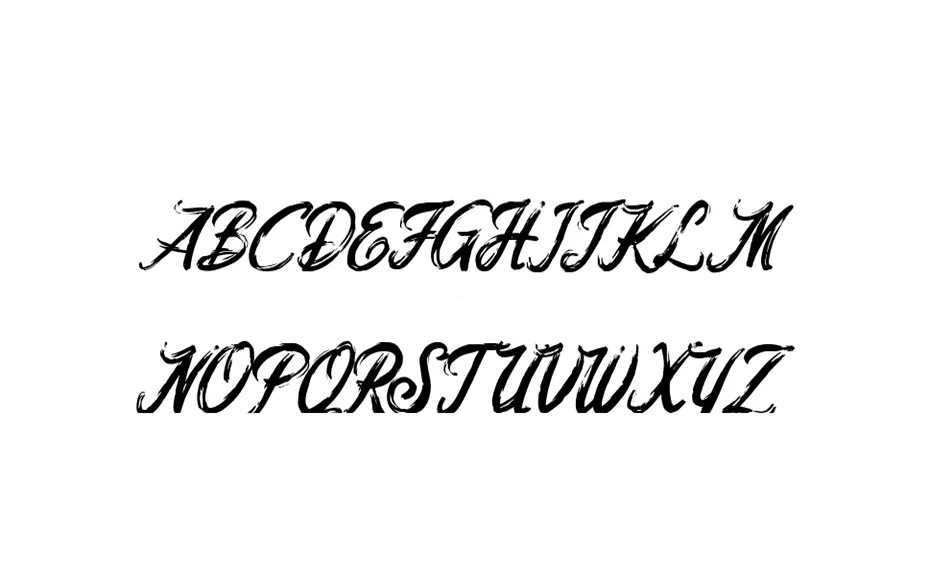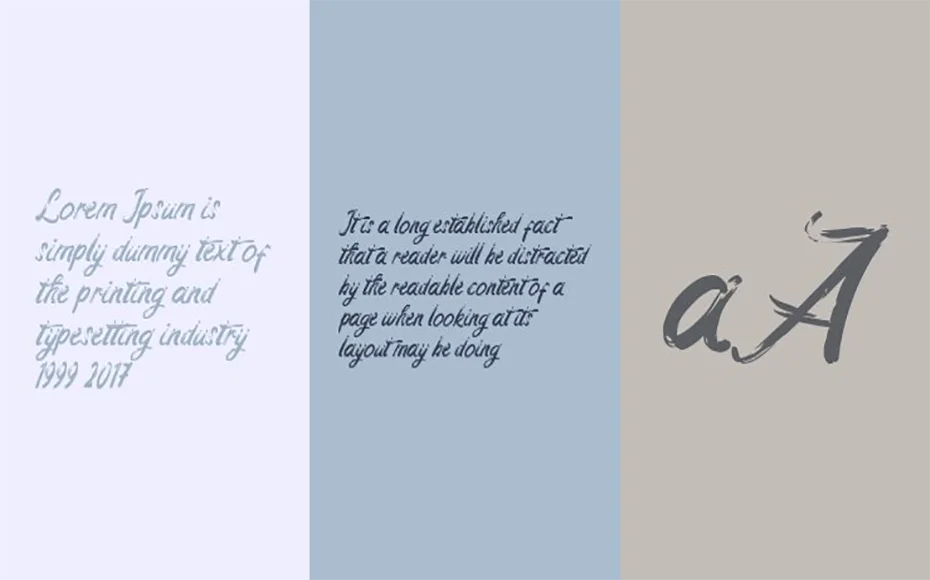
Are you looking for an elegant and vintage feel handwritten brush font? Then, you should check out the Hello Vintage Font. It is ideal for posters, flyers, banners, headers, and more.
This typeface was made by the super-talented lady Fenny Wiryani for her type of foundry Starinkbrush. Fenny Wiryani belongs to Indonesia.
This font is the most ideal typeface just because of its shape and stylish look. Copying prints are great, so it feels just like natural handwriting.
And stylish vintage font inspired by a 70’s groovy vibe with a touch of modernity. It looks awesome at display sizes and is easily readable in text size.
With this high-end font help, you can surely create social media posters, banners, unique emblems, game titles, game graphics, product designs, product packaging, t-shirt printing, advertisements, flyers, covers, shopping bags, and so on.
This fine-quality font comes in a single style that has more than 66 characters with the 4th Encoding Scheme.